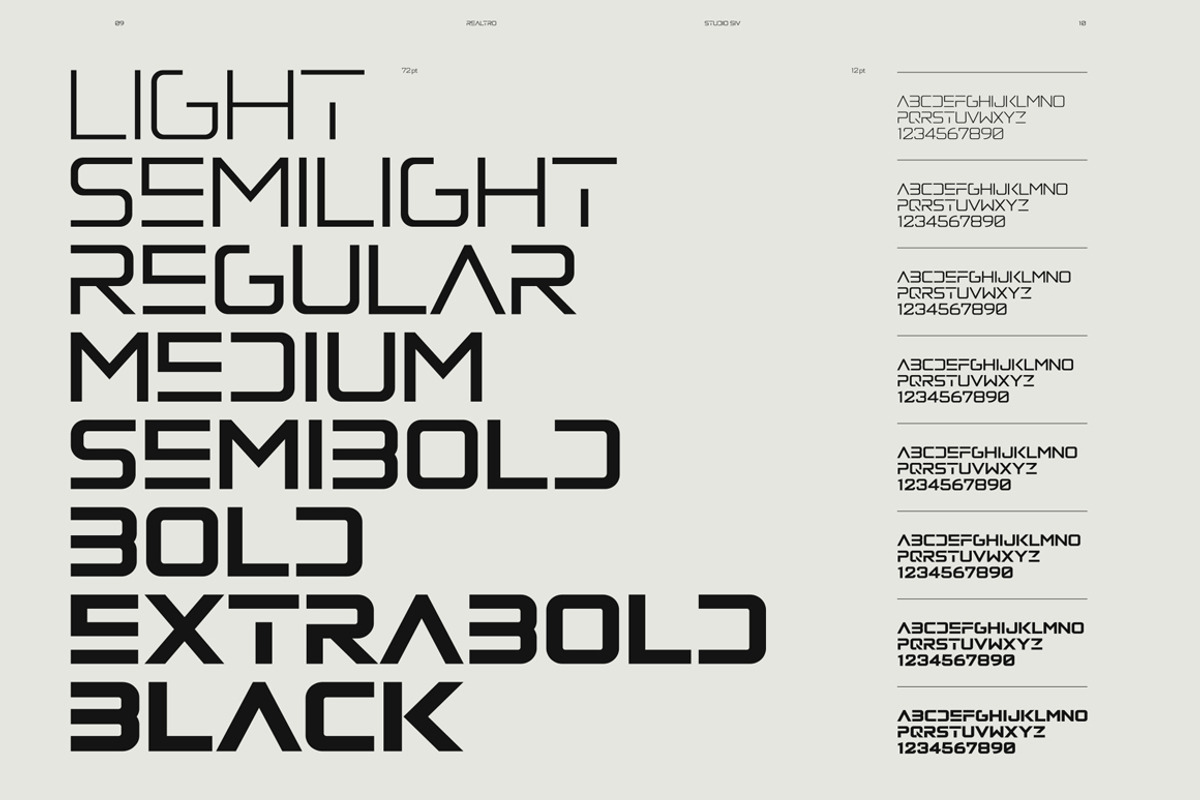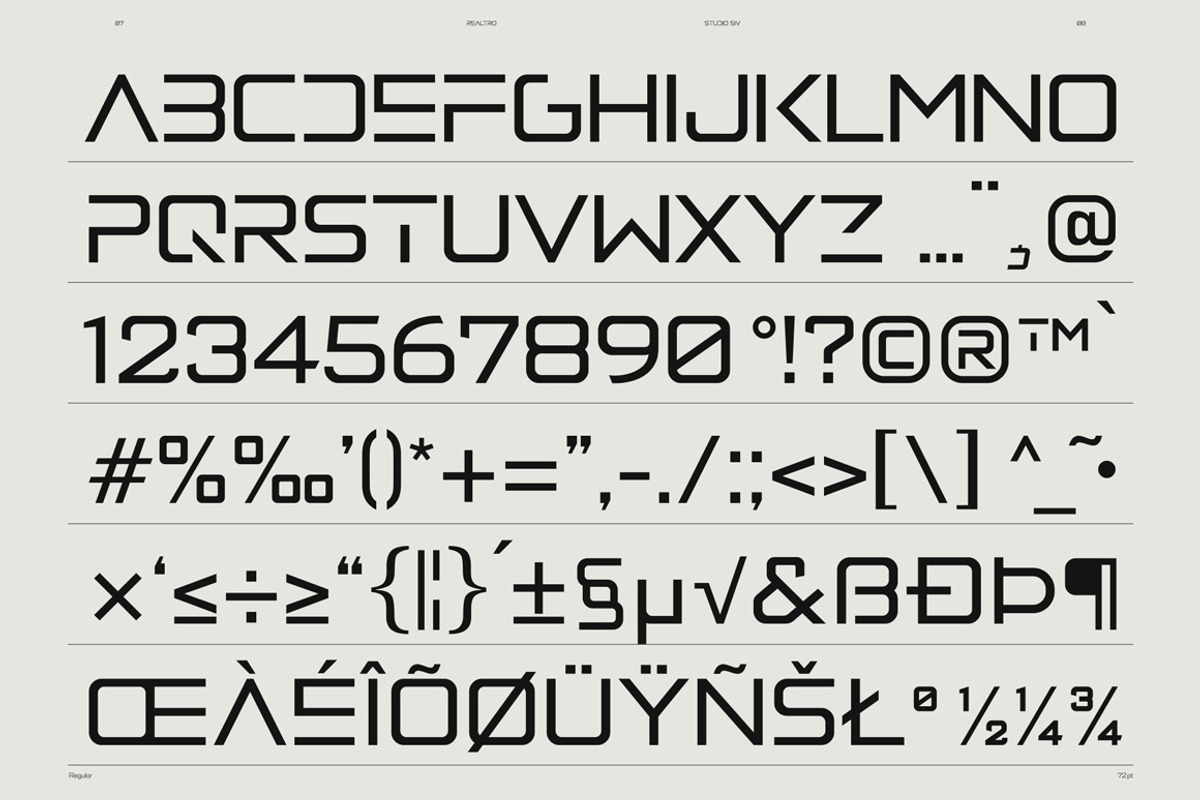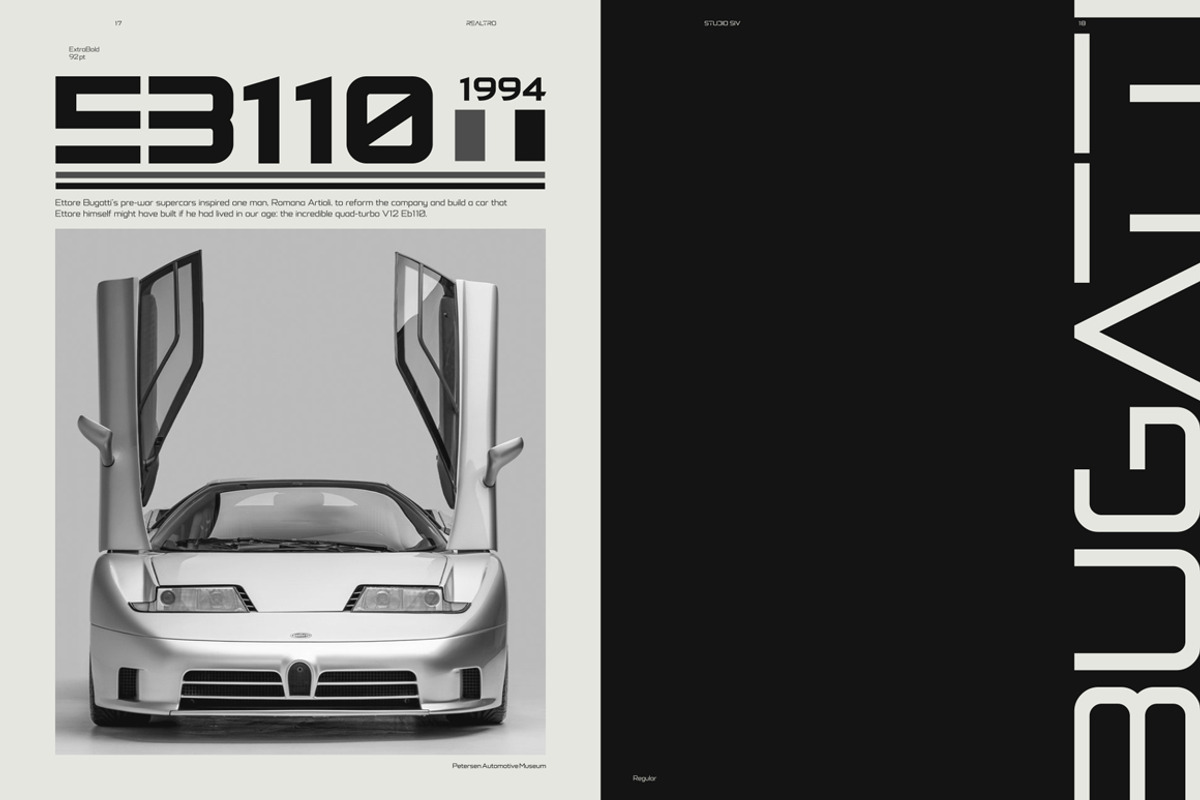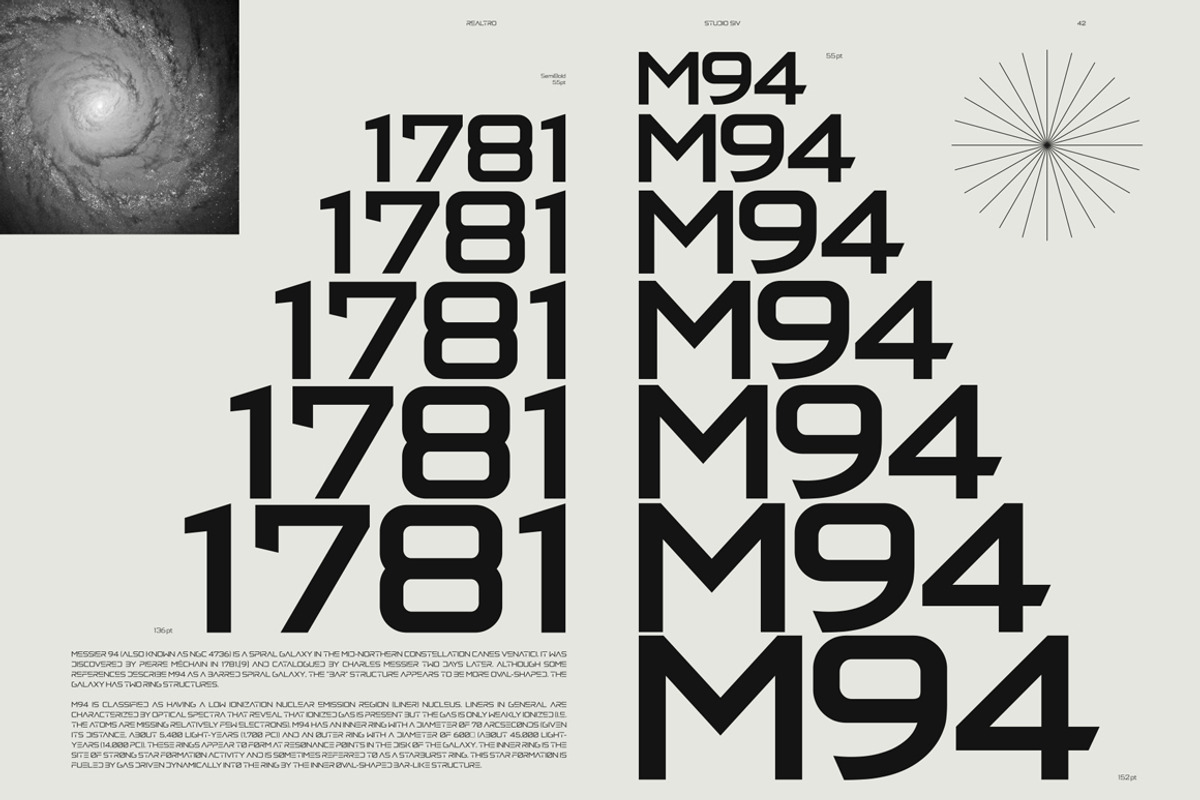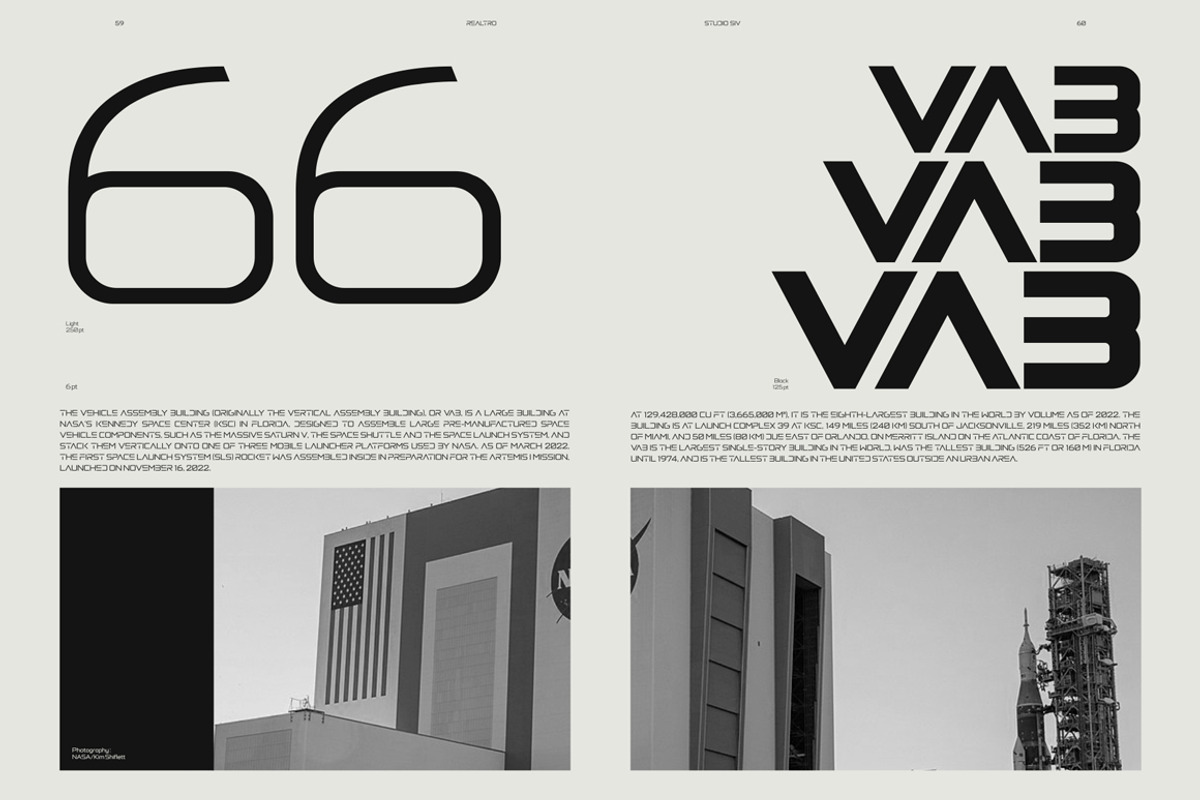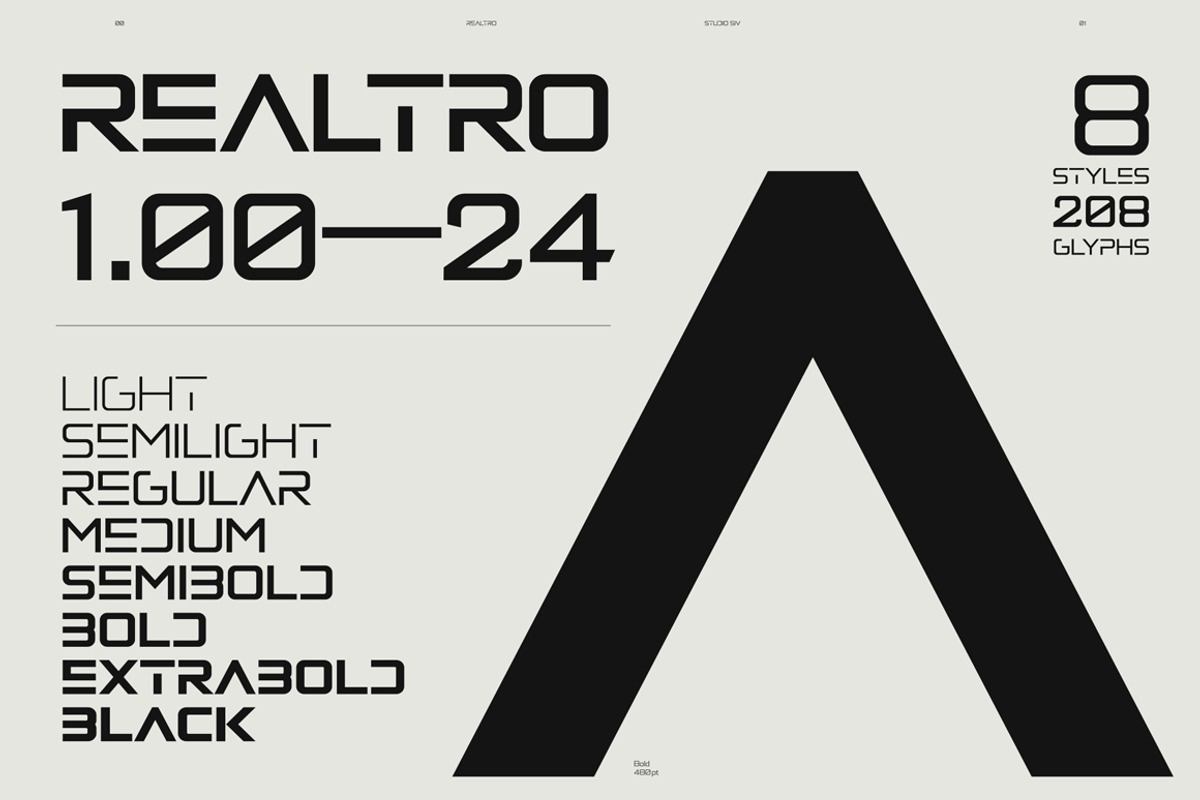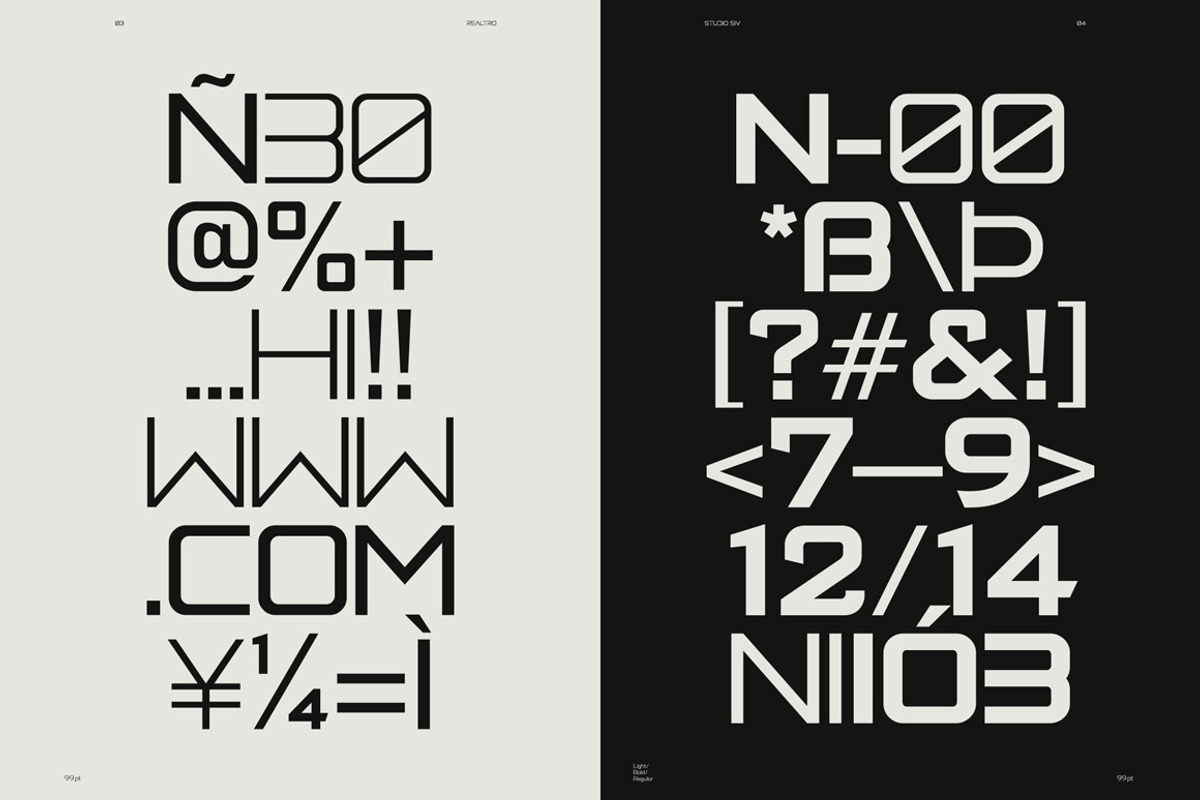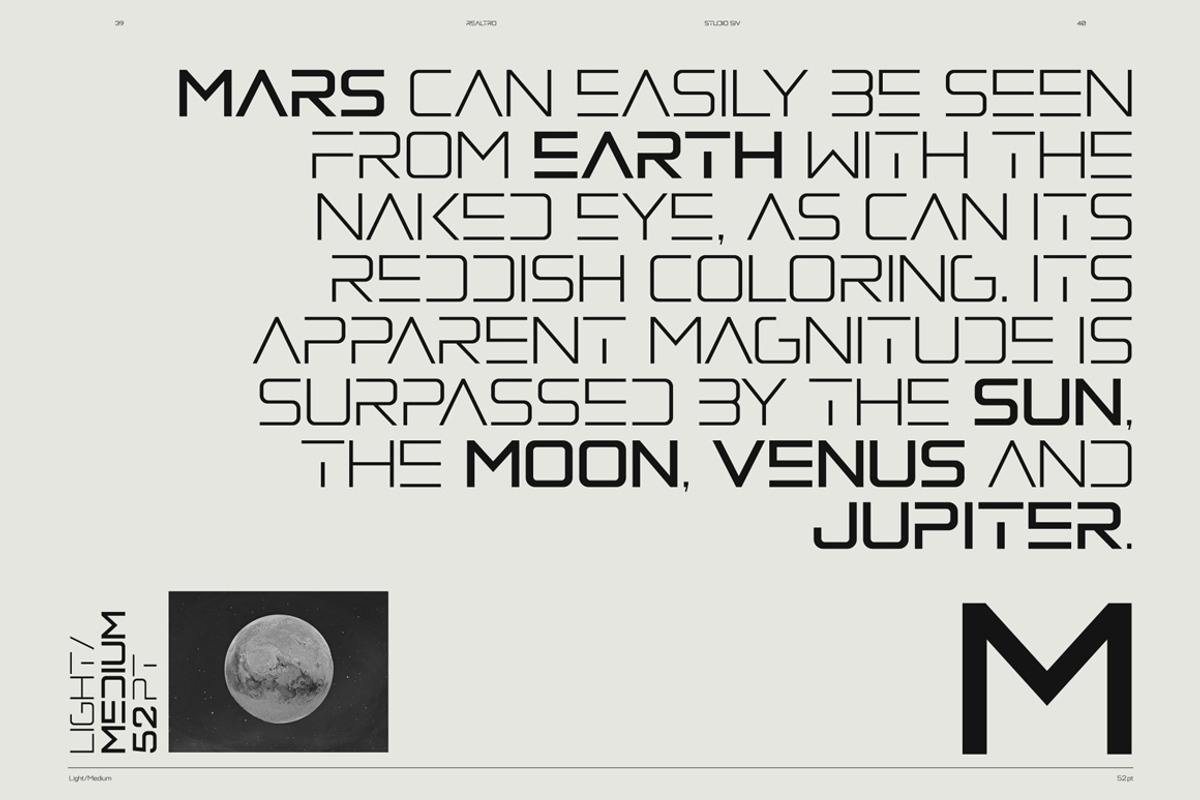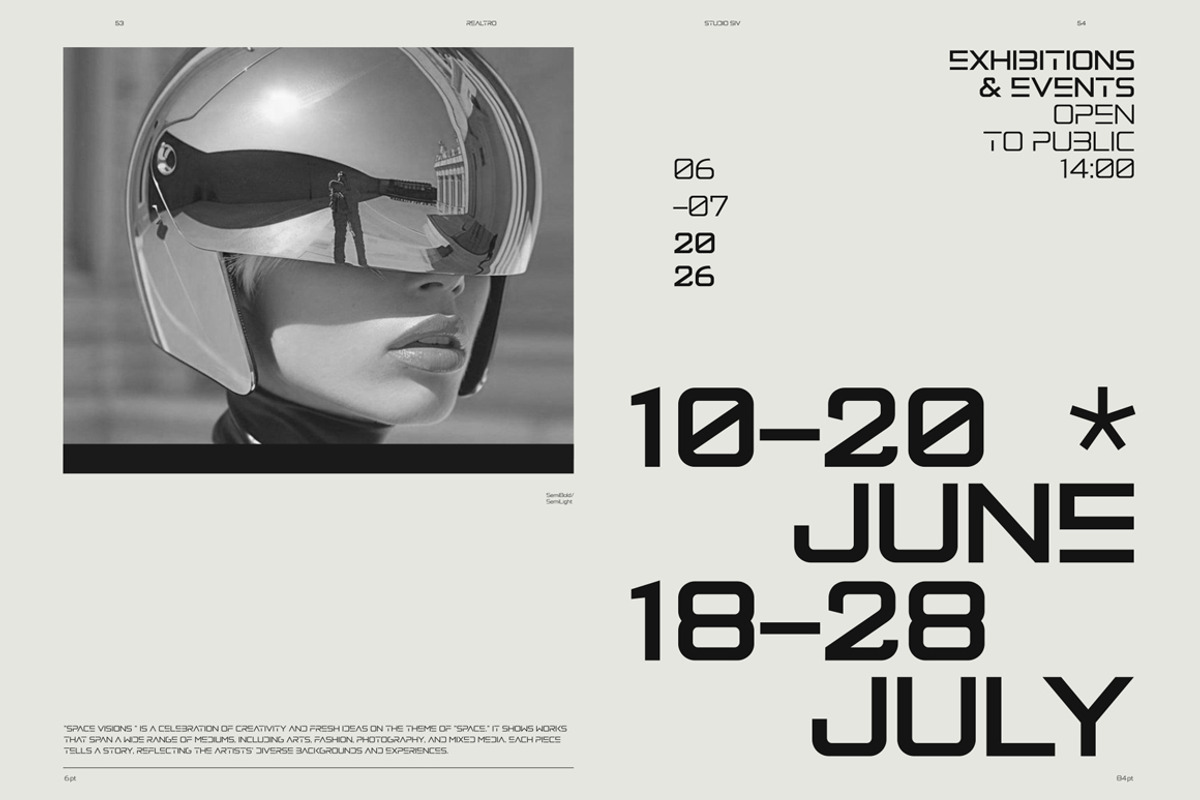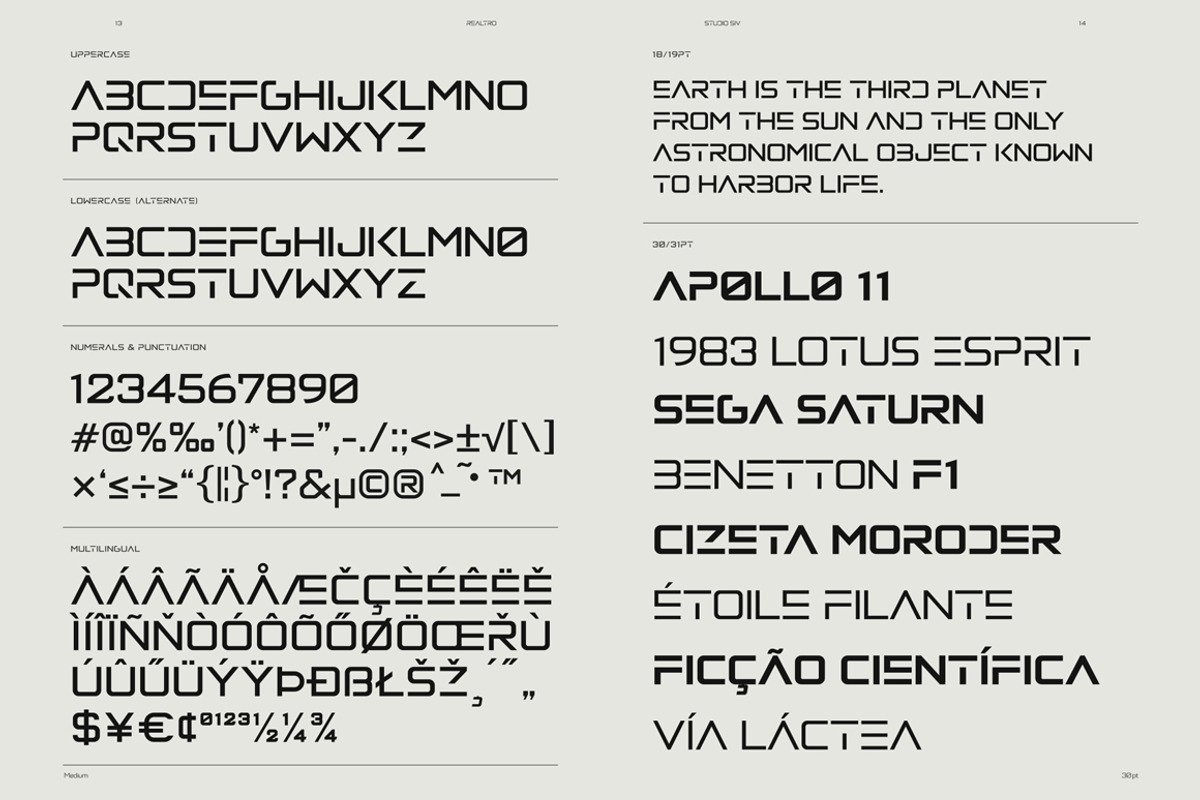
Realtro - Modern Font Family 8Styles
Realtro is a modern sans with trimmed letters and a futuristic vibe inspired by the needs of the space and sci-fi industries such as film, product, and print media. The font has different styles from light, medium, to bold and black, and each consists of uppercase with alternate letters, uppercase multilingual letters, numerals and punctuation.
With eight styles, ranging from Light to Black, this font family seeks to fulfill the needs of creators looking to create a retro to modern futuristic look for anything from automotive brands to the space industry, entertainment and fashion.
- 8 Styles (Light to Black)
- Supports over 24 Languages
Language Support
Afrikaans • Albanian • Bosnian • Croatian • Czech • Danish • Dutch • English • Estonian • Filipino • Finnish • French • German • Hungarian • Icelandic • Indonesian • Irish • Italian • Malay • Norwegian • Portuguese • Spanish • Swedish • Venetian